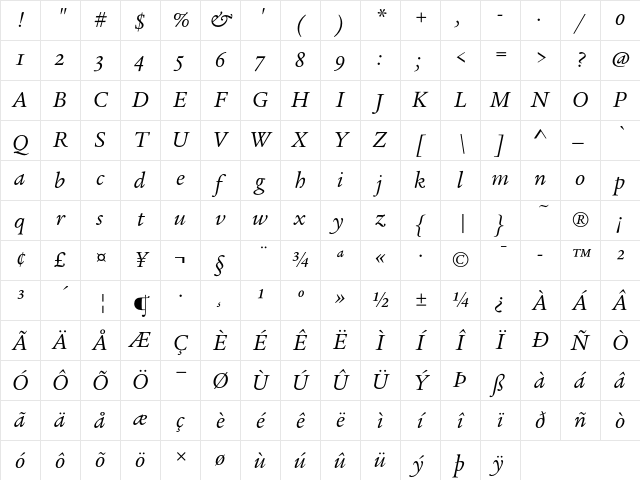
Legacy Serif ITC Book Italic OS
Style: Book Italic OS
Legacy Serif ITC Family
Complete Legacy Serif ITC Book Italic OS glyph index. Displaying only characters natively supported by Legacy Serif ITC Book Italic OS font.
Design Context for Legacy Serif ITC
Legacy Serif ITC carries the refined structure of traditional serif typography, with bracketed terminals and considered proportions that communicate credibility and craft. The slanted form adds forward momentum and visual energy.